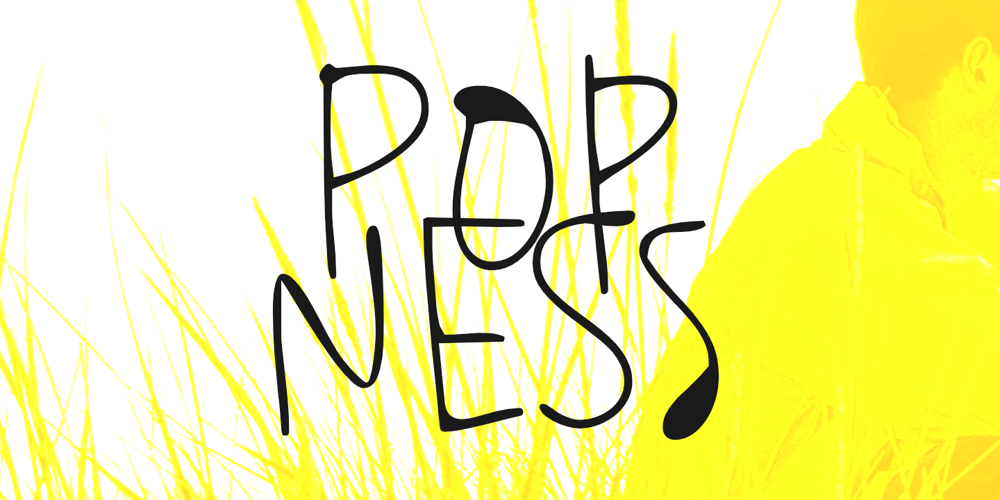
Popness Font Family was designed by Aldy Sidik and published by Epiclinez. Popness contains 1 styles and family package options. Whether you’re making a cool logo for a new toy or decorating a box of cookies with pretty words, Popness is here to help make things look extra awesome. It’s like having a super fun friend who always brings excitement and happiness to your projects, making them stand out in a crowd! So get ready to enter the world of Popness where everything you create becomes even more amazing and full of joy!Popness features : Standard Latin Numbers, symbols, and punctuations Multilingual Support. Simple Installations Works on PC & Mac Fully accessible without additional design software Thank You.